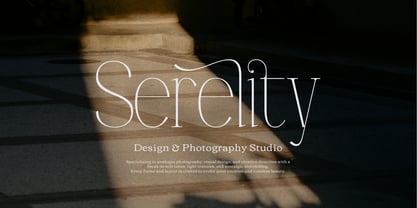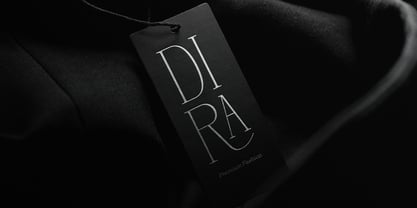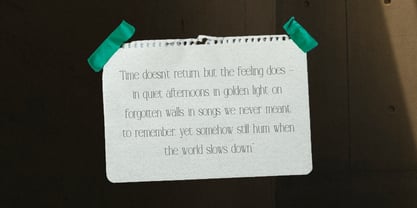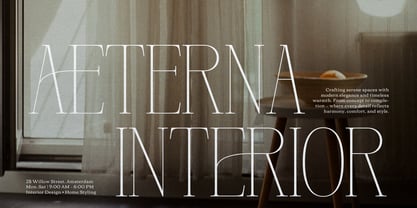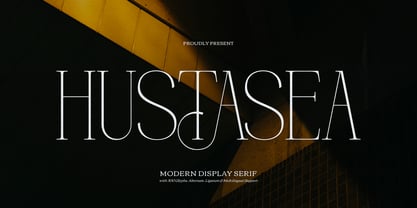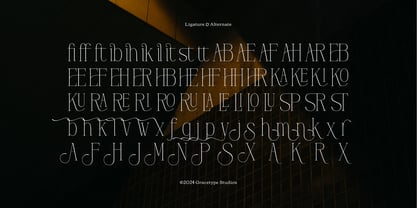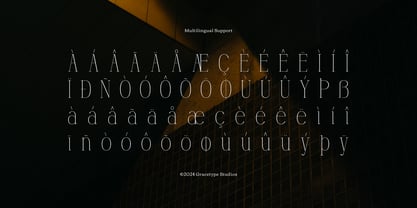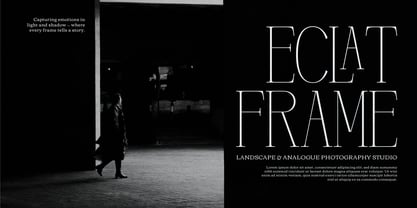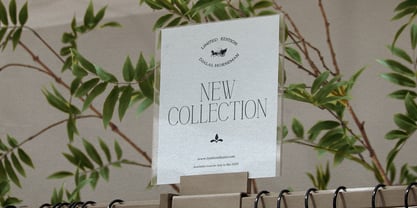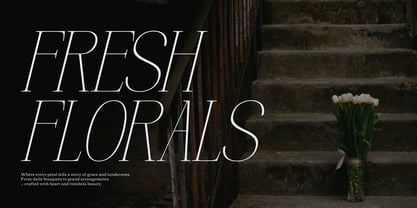
Hustasea
Hustasea | Modern Display Serif, from Gracetypestudio, suitable for any projects such as: logos, branding projects, homeware designs, product packaging, mugs, quotes, posters, shopping bags, t-shirts, book covers, name card, invitation cards, greeting cards, label, photography, watermark, special events, and all your other lovely projects that need a Serif taste.